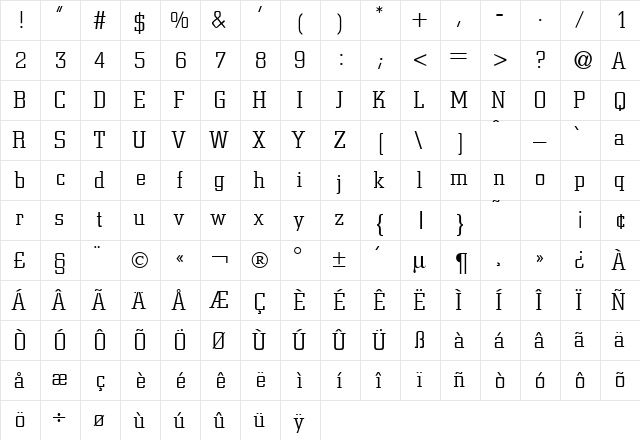
CittaSmall Normal
Design Context for CittaSmall Typeface
CittaSmall offers clean, dependable letterforms without strong stylistic allegiance, making it a practical choice for designers who need flexibility.